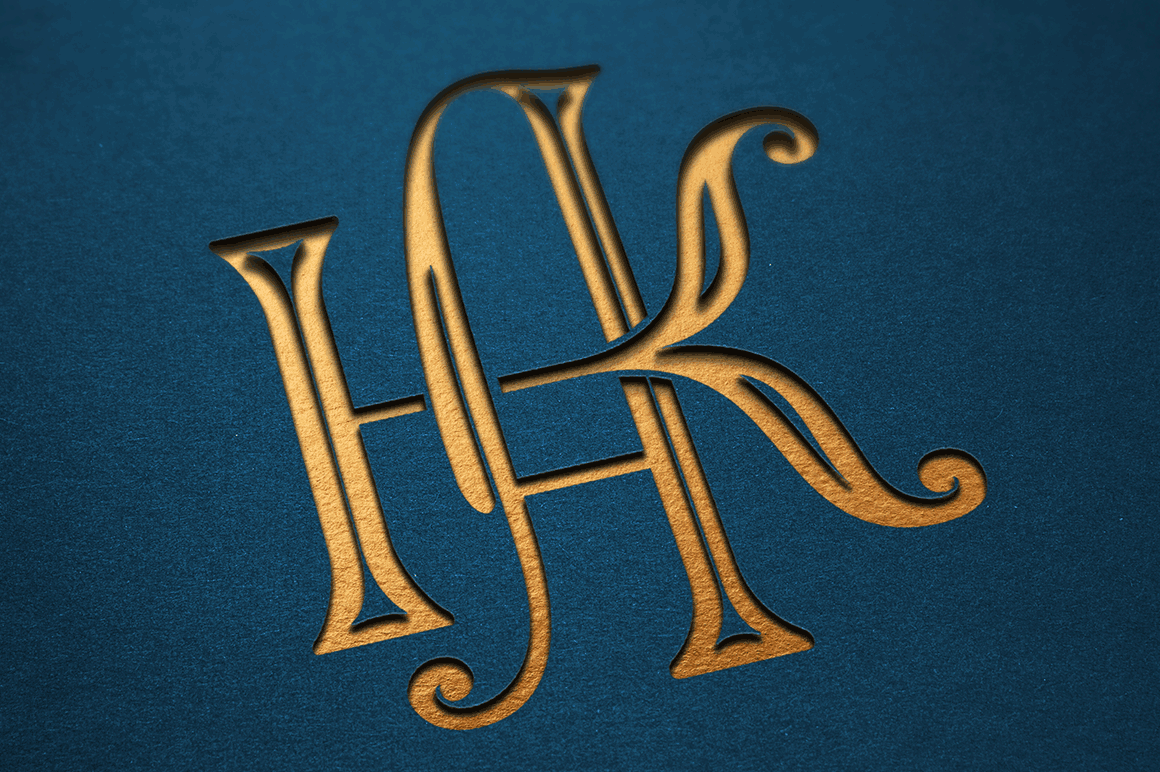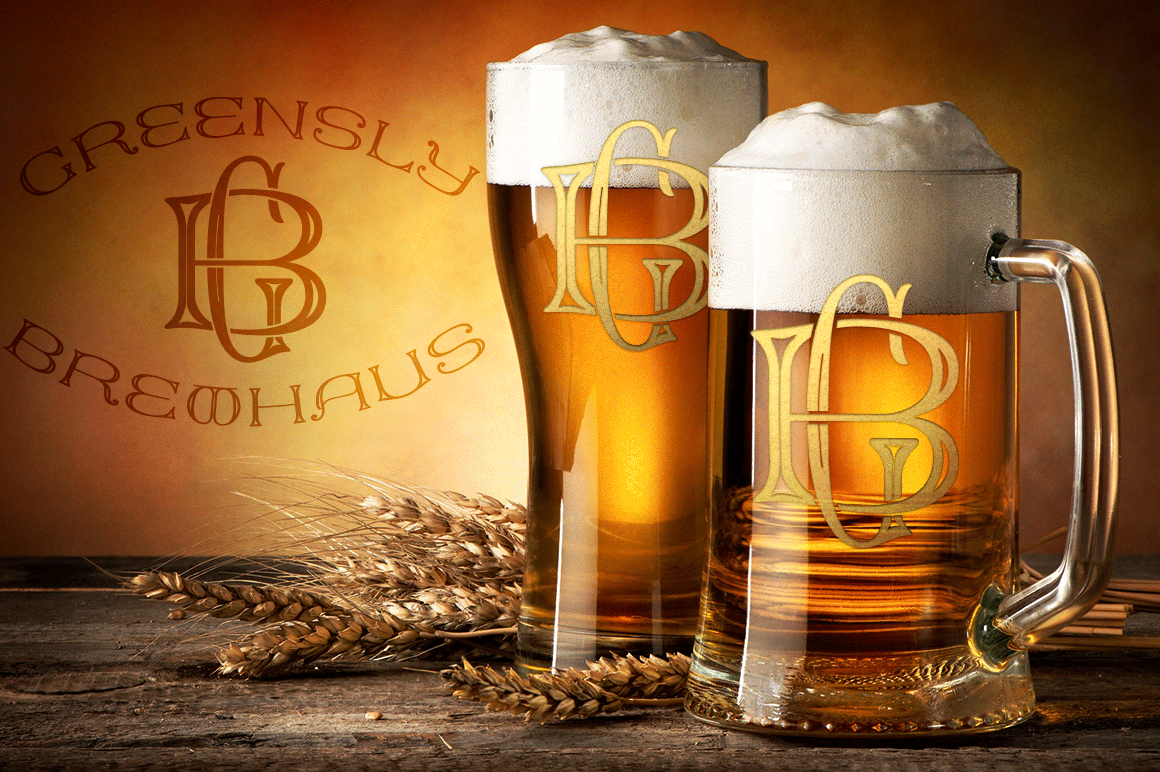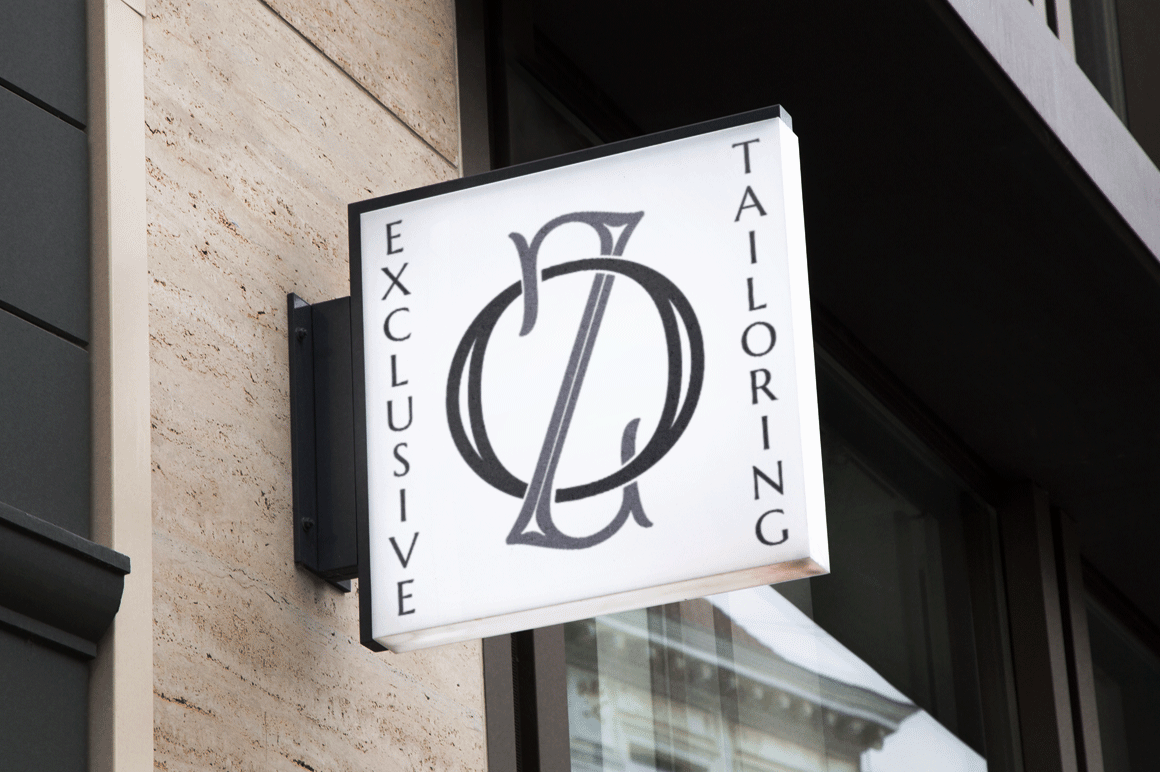
MFC Keating Monogram
Font Family by Monogram Fonts Co
The inspiration source for MFC Keating Monogram is an alphabet set from the book, Monograms and Alphabets for Combination by Dollfus Mieg & Cie, first published in the 1890s. What began as 26 referenced outline/shadowed letters became an over 730 character font in order to create its unique interwoven monogram effect!
MFC Keating Monogram can create one, two, or three letter monograms as well as a unique two letter intertwined monogram style. Classic decorative letterforms combine to make elegant monograms, and you can also choose to type in all capitals or all lowercase for simple title and headlines as well.
MFC Keating Monogram is the original Outline/Shadowed style. MFC Keating Monogram Solid is a version with the original outline filled in. MFC Keating Monogram One is the Capital letterforms only in both standard and ligature glyphs. MFC Keating Monogram Two is the Lowercase letterforms only in both standard and ligature glyphs. MFC Keating Monogram Stencil contains the inner fill of the original Outline/Shadowed style, and while the standard Capitals & Lowercase do not appear as stencil in style, the ligatures are.